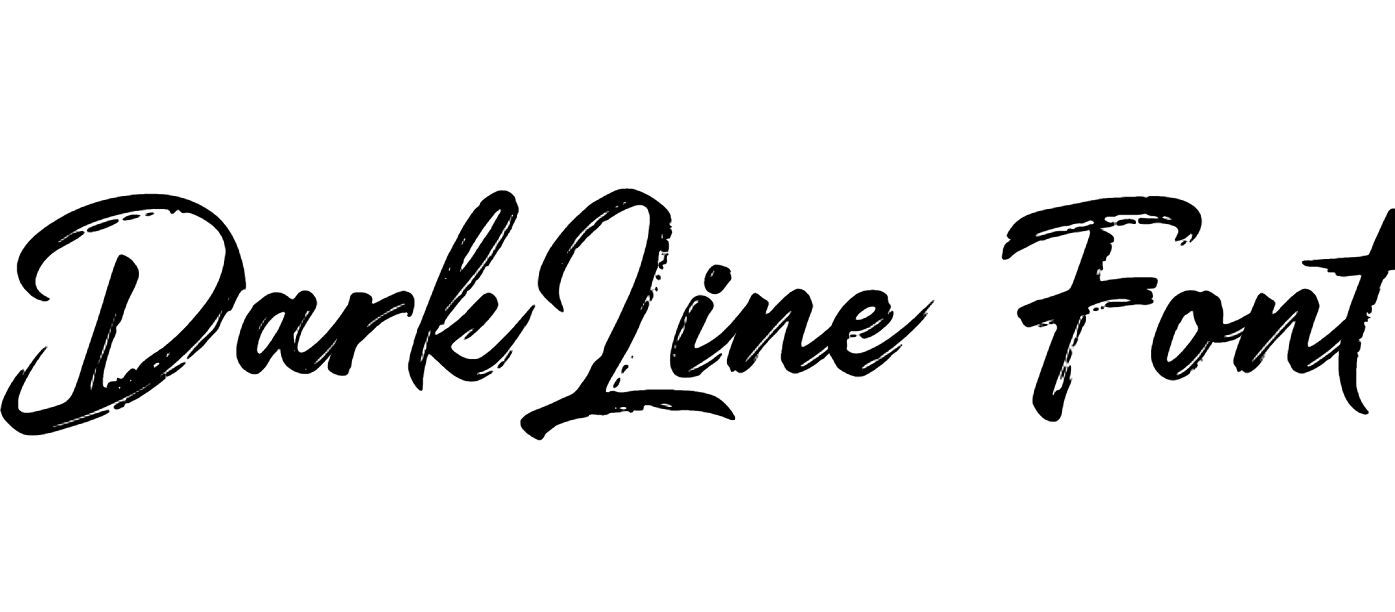
DarkLine
DarkLine is a script font made by Rangga Singgih Subekti (2019). It has that hand-lettered, flowing feel people look for when regular type seems too stiff. It's a free download, and you can try it with your own text in the preview above first.
You get every letter from A to Z in both cases and all the numbers from 0 to 9, which means DarkLine can handle full sentences, dates and prices. Everyday marks like &, !, ? and @ are there too. Thanks to its accented letters, it also works for Spanish, French, German, Portuguese and Italian, not just English.
Think of DarkLine for wedding invitations, logos and signature-style headings. Its lowercase letters are small compared to the capitals, so set it a size or two bigger than usual. Script fonts read best in short bursts, so keep it to names, titles and one-line quotes. Skip all caps: script capitals are drawn to start a word, not to fill one.
Yes. DarkLine includes the accented letters needed for Spanish, French, German, Portuguese and Italian, so it works for more than just English.